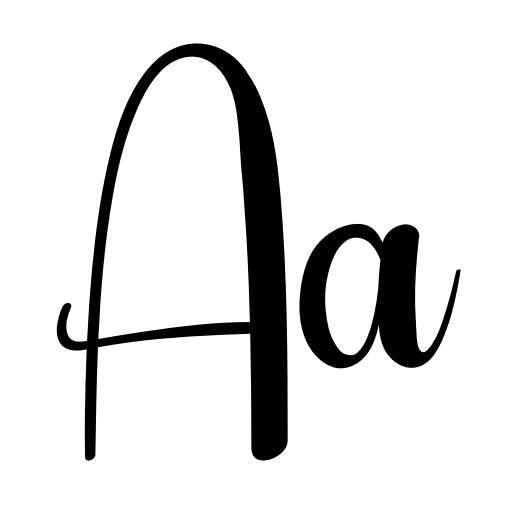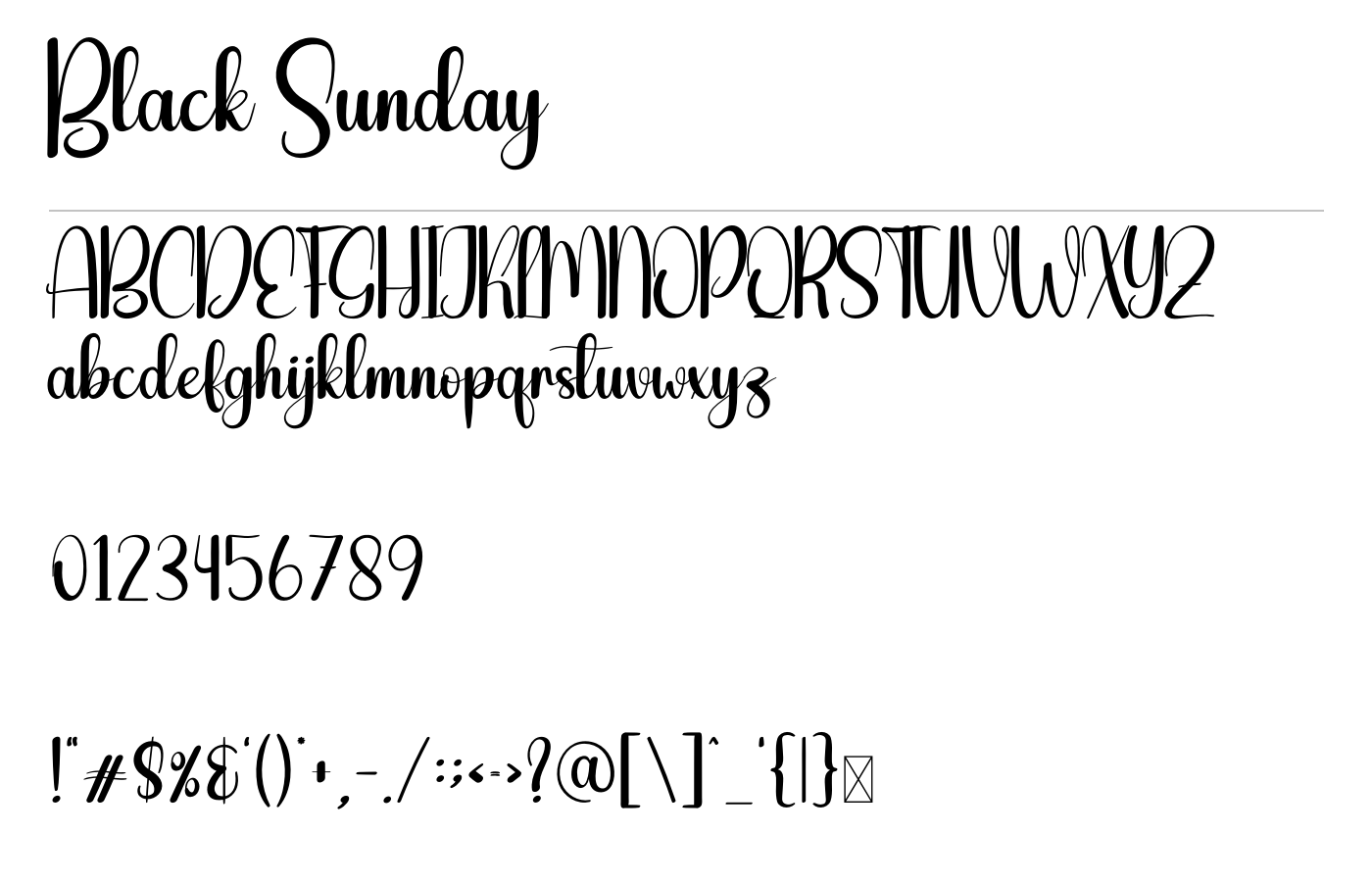
Black Sunday is a playful and elegant script font featuring tall, narrow letterforms with a mix of thick and thin strokes that create a dynamic, hand-drawn feel. Its distinctive, slightly irregular shapes and flowing connections make it a charming choice for creative branding, invitations, and headlines that seek a modern yet whimsical touch. This font works beautifully where a lively, personal style is desired, adding character and sophistication without sacrificing readability.
Black Sunday Font
About Black Sunday Font